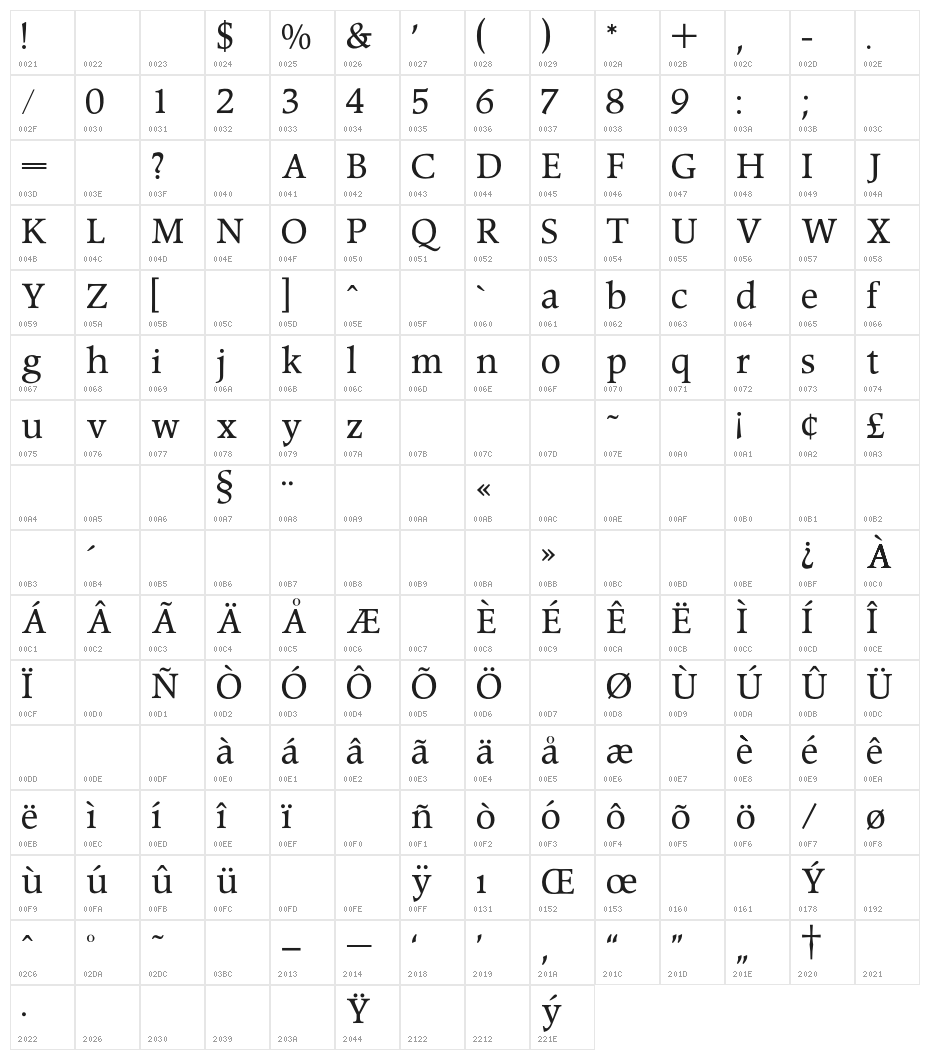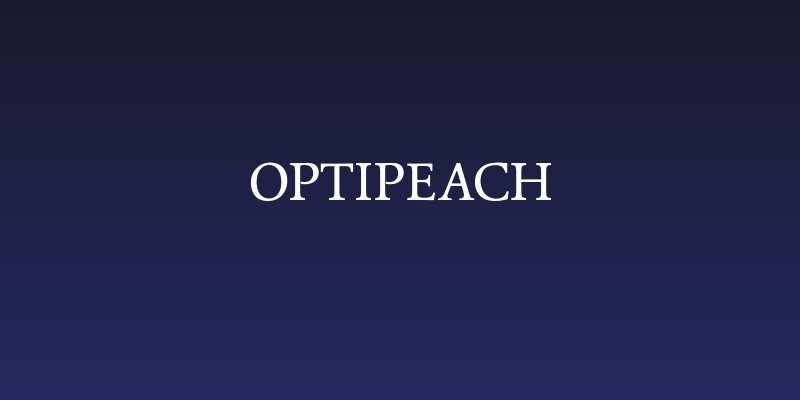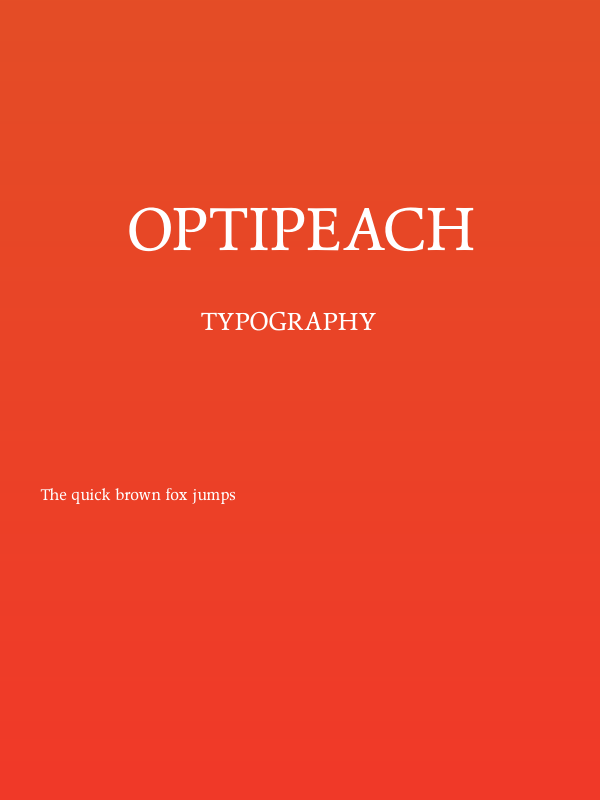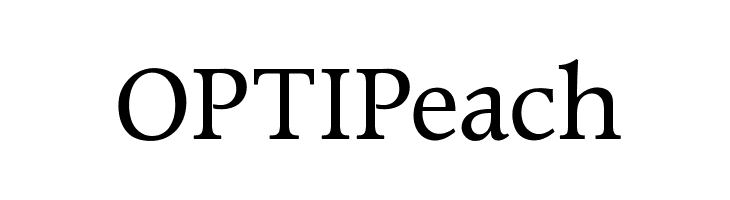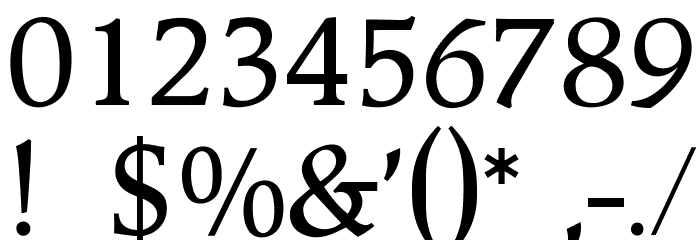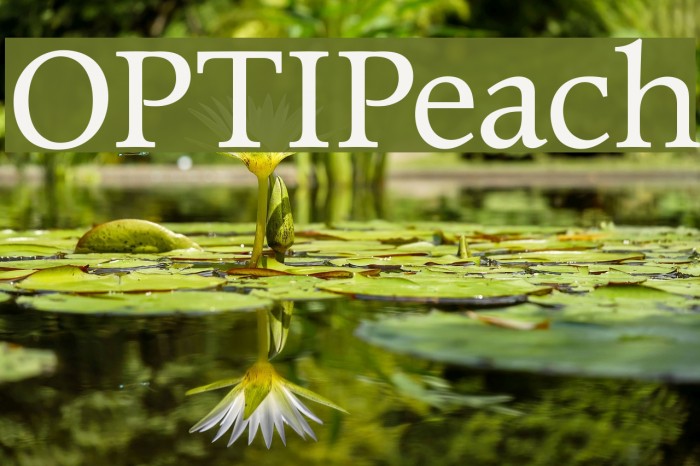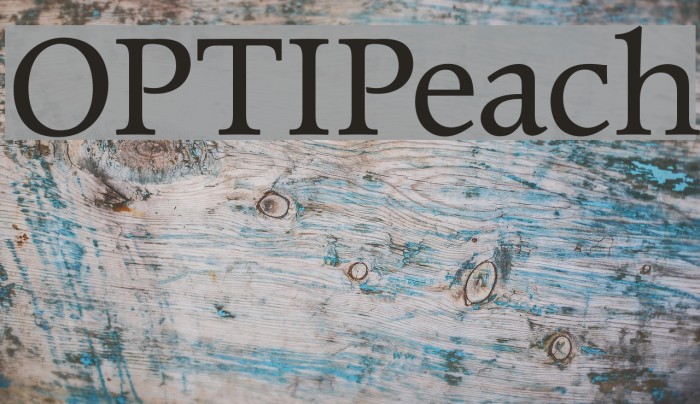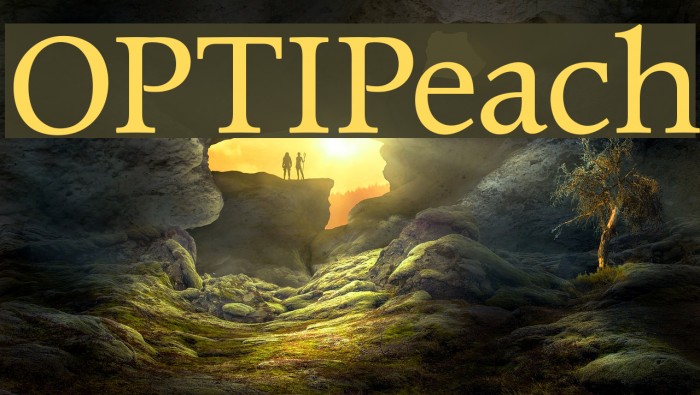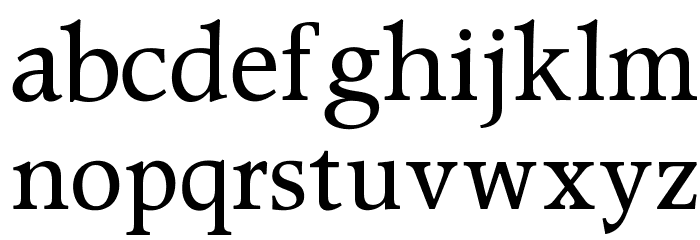
OPTIPeach Font
OPTIPeach Description
This font features a classic serif style with elegant and refined strokes. The uppercase letters are bold and commanding, while the lowercase letters maintain a graceful and sophisticated appearance. The numerals are clear and well-proportioned, making them easy to read. Special characters are designed with the same attention to detail, ensuring consistency throughout. The overall design is timeless, suitable for a variety of formal and professional applications. The contrast between thick and thin strokes adds to its readability and aesthetic appeal.
| Overall Style | Classic |
| Use Case | Headlines, Body text, Logos |
| Proposed Projects | Ideal for book covers, formal invitations, branding, and editorial design. |